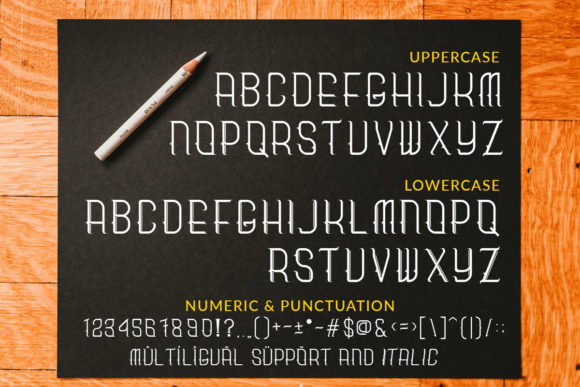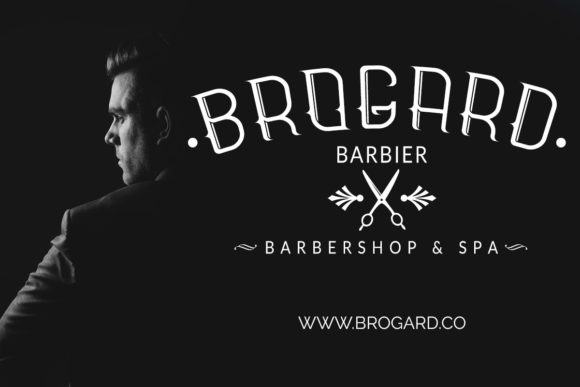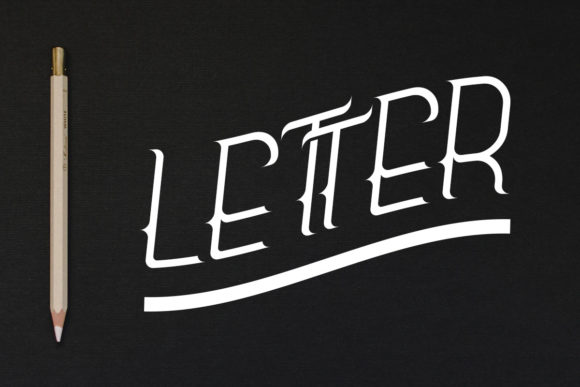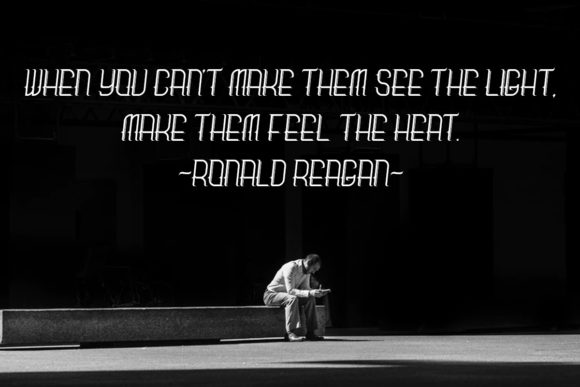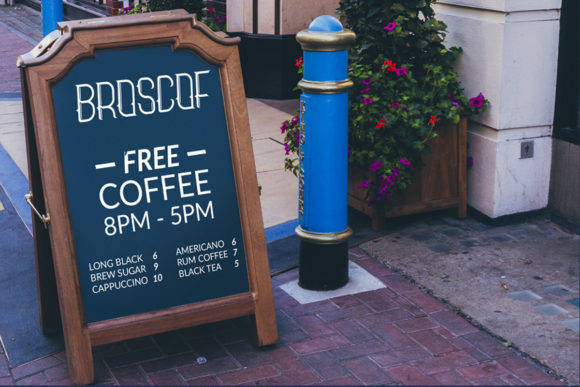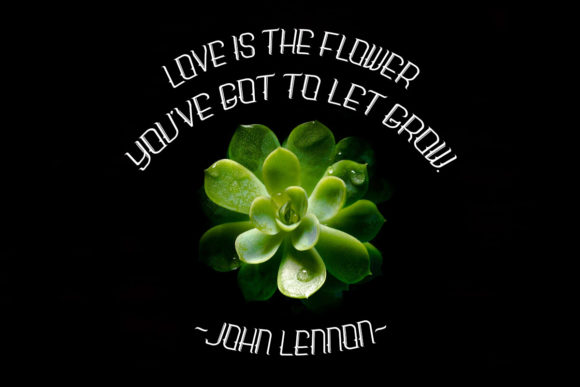
Breadly Font: Elevate Your Designs with this Unique and Trendy Display Font
In the world of typography, fonts play a crucial role in making or breaking a design. A font can either make your creation stand out or blend it into the background. If you’re a designer or crafter looking for a font that can elevate your designs, look no further than Breadly Font. In this article, we’ll dive into the world of Breadly Font, exploring its unique features, benefits, and uses.
What is Breadly Font?
Breadly Font is an incredibly unique and trendy display font that has been making waves in the design community. Its distinctive style and versatility make it an excellent addition to any font library. Whether you’re working on a branding project, a craft project, or a digital design, Breadly Font has the potential to take your creation to the next level.
Unique Features of Breadly Font
So, what makes Breadly Font so special? Here are some of its unique features:
- Trendy Design: Breadly Font boasts a modern and trendy design that’s perfect for creating eye-catching headlines, titles, and captions.
- Versatility: This font is incredibly versatile and can be used on a wide range of projects, from branding and advertising to crafting and DIY projects.
- High Readability: Despite its unique design, Breadly Font remains highly readable, making it perfect for use in both digital and print designs.
- Customizable: Breadly Font can be easily customized to fit your design needs, allowing you to experiment with different colors, textures, and styles.
Benefits of Using Breadly Font
So, why should you choose Breadly Font for your next design project? Here are some benefits of using this amazing font:
- Stand Out from the Crowd: With Breadly Font, you can create designs that stand out from the crowd and grab attention.
- Elevate Your Brand: If you’re a business owner or marketer, Breadly Font can help elevate your brand and make it more recognizable.
- Easy to Use: Breadly Font is incredibly easy to use, even for those who are new to design.
- Time-Saving: With Breadly Font, you can save time and effort in creating custom designs from scratch.
Uses of Breadly Font
Breadly Font is an incredibly versatile font that can be used in a wide range of projects, including:
- Branding and Advertising: Use Breadly Font to create eye-catching logos, billboards, and ad campaigns.
- Crafting and DIY Projects: Add a personal touch to your craft projects, such as handmade cards, invitations, and scrapbooking.
- Digital Design: Use Breadly Font in your digital designs, such as social media graphics, blog posts, and website headers.
- Print Design: Use Breadly Font in your print designs, such as brochures, flyers, and posters.
In conclusion, Breadly Font is an incredibly unique and trendy display font that can elevate any creation. Its versatility, readability, and customizability make it an excellent addition to any font library. Whether you’re a designer, crafter, or business owner, Breadly Font is a must-have font that can help you create stunning designs that stand out from the crowd.